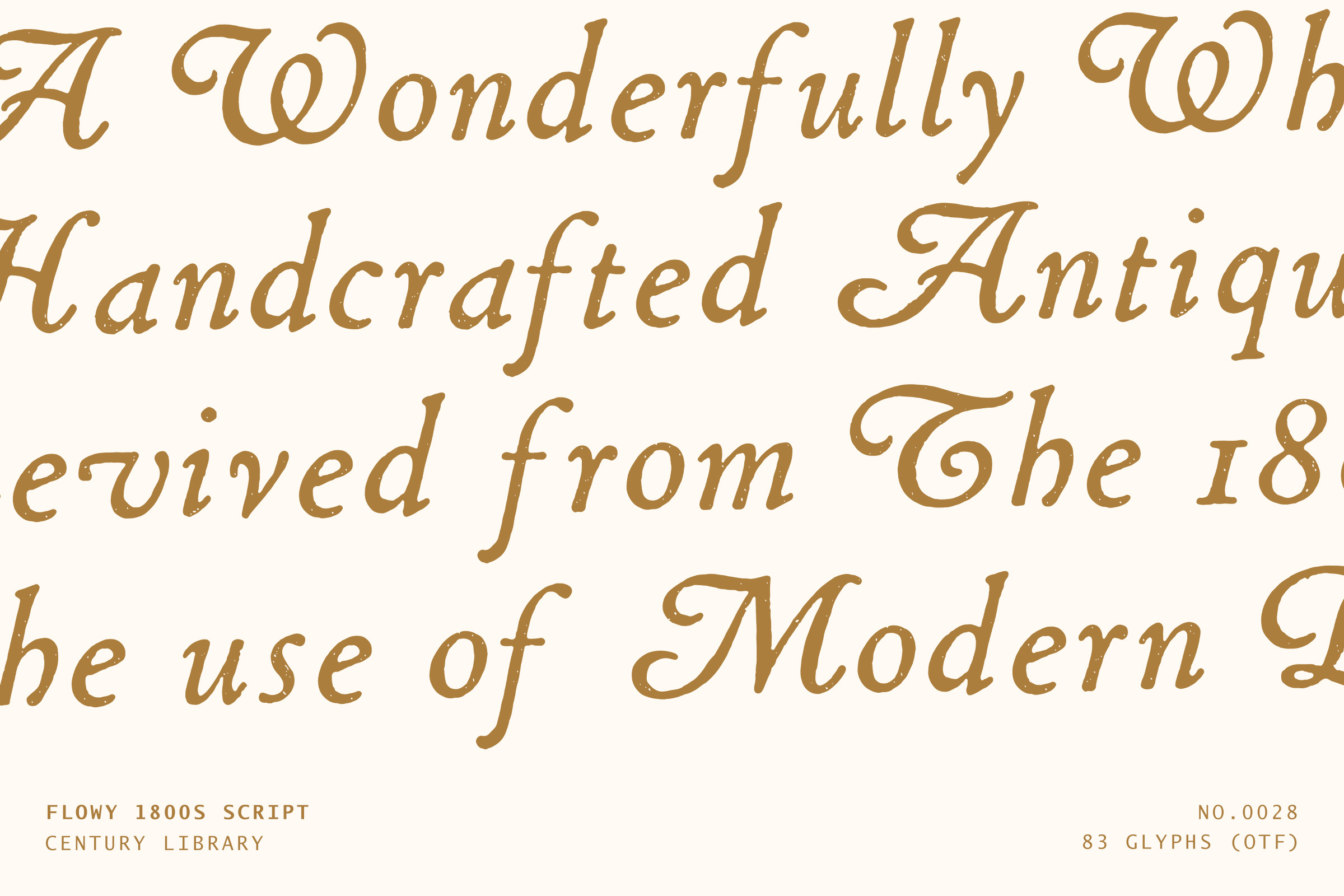
Handcrafted Vintage Script Font
This typeface has charm for days. CL Antique No.28 is a beautifully flowing, slightly irregular script originally hand-drawn in the 1800s. We gave it a second life by carefully restoring every glyph, imperfections and all, straight from the source material.
It features a full upper and lowercase set, plus a collection of lovely ligatures, stylistic alternates, and select punctuation. Think elegant but friendly. Classy but approachable. Like something you’d find on an antique invitation, reborn for modern design work.
Ideal for vintage logos, packaging, editorial layouts, stationery, wedding projects, or anything that could use a dash of old-world elegance.